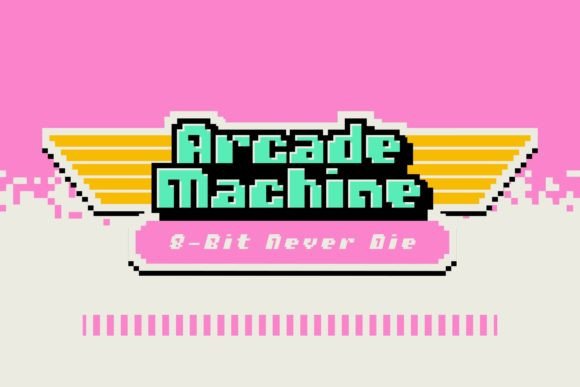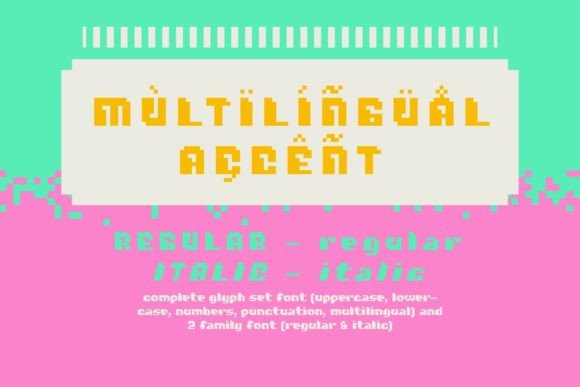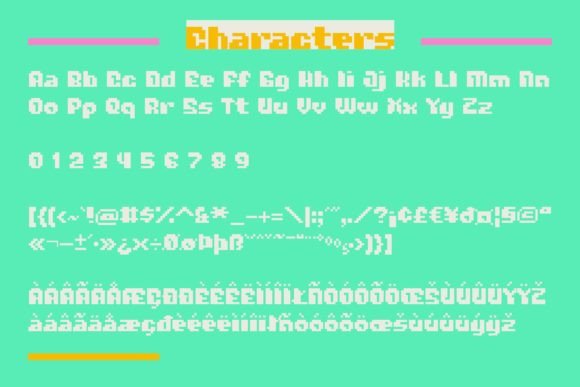
Bubbly Bit Font: The Ultimate Retro Pixel Display Font for Your Creative Projects
Are you a designer, gamer, or crafty enthusiast looking for a font that adds a touch of nostalgia to your projects? Look no further than Bubbly Bit Font! This retro pixel display font is perfect for creating eye-catching designs that scream retro game design themes. In this article, we’ll dive into the world of Bubbly Bit Font, exploring its features, uses, and benefits for designers, gamers, and crafty enthusiasts alike.
What is Bubbly Bit Font?
Bubbly Bit Font is a unique and quirky display font that boasts a retro pixel style, reminiscent of old-school video games and 8-bit graphics. Its chunky, pixelated letters are sure to grab attention and add a dash of nostalgia to any design project. Whether you’re working on a retro-themed game, a vintage-inspired logo, or a distressed-style poster, Bubbly Bit Font is the perfect choice.
Features of Bubbly Bit Font
- Retro Pixel Style: Bubbly Bit Font features a distinctive retro pixel style that’s perfect for creating designs that look like they belong in a classic video game.
- Display Font: This font is specifically designed as a display font, making it ideal for headlines, titles, and other attention-grabbing elements.
- Highly Versatile: Bubbly Bit Font can be used for a wide range of projects, including logos, posters, games, book covers, and more.
- Easy to Read: Despite its pixelated style, Bubbly Bit Font is surprisingly easy to read, making it perfect for designs that require a clear and concise message.
Uses of Bubbly Bit Font
Bubbly Bit Font is an incredibly versatile font that can be used for a wide range of projects, including:
- Retro Game Design: Create authentic retro-style game designs that transport players back to the good old days.
- Movie and Film Posters: Add a touch of nostalgia to your movie and film posters with Bubbly Bit Font’s retro pixel style.
- Logos and Branding: Create eye-catching logos and branding materials that stand out from the crowd.
- Book Covers and Titles: Use Bubbly Bit Font to create bold and eye-catching book covers and titles that grab readers’ attention.
- Headlines and Titles: Add a dash of personality to your headlines and titles with Bubbly Bit Font’s unique and quirky style.
Benefits of Using Bubbly Bit Font
So, why should you choose Bubbly Bit Font for your next design project? Here are just a few benefits of using this amazing font:
- Instant Nostalgia: Bubbly Bit Font instantly evokes a sense of nostalgia, transporting your audience back to the good old days of retro gaming and 8-bit graphics.
- Attention-Grabbing: This font is designed to grab attention, making it perfect for headlines, titles, and other attention-grabbing elements.
- Unique and Quirky: Bubbly Bit Font adds a dash of personality to your designs, setting them apart from the crowd.
- Easy to Use: This font is incredibly easy to use, making it perfect for designers of all skill levels.
| Font Name | Bubbly Bit Font |
| Author | snapedsgn |